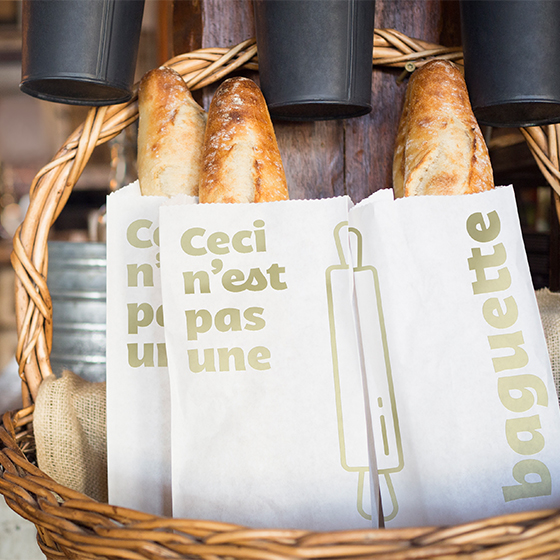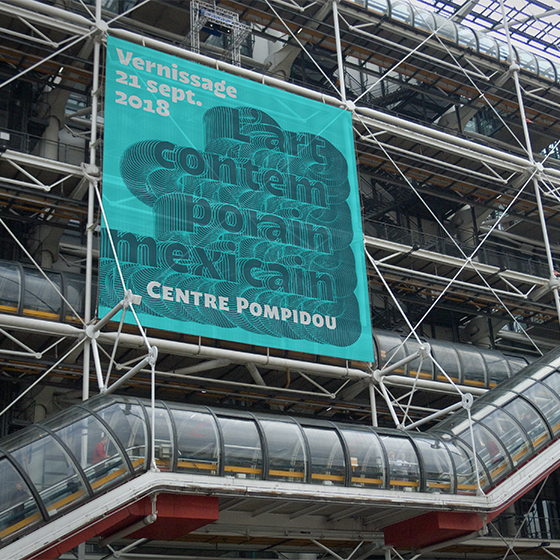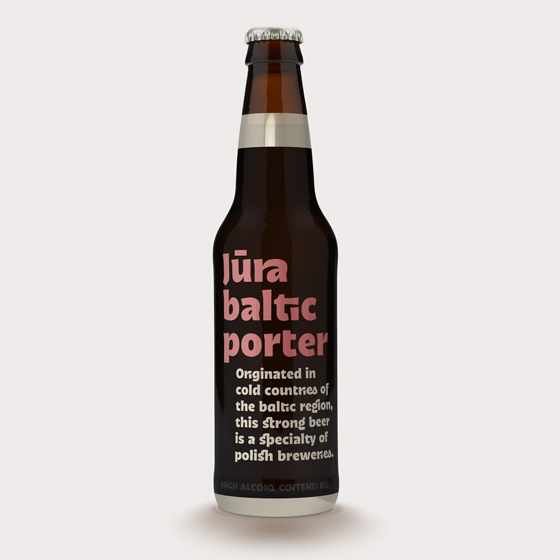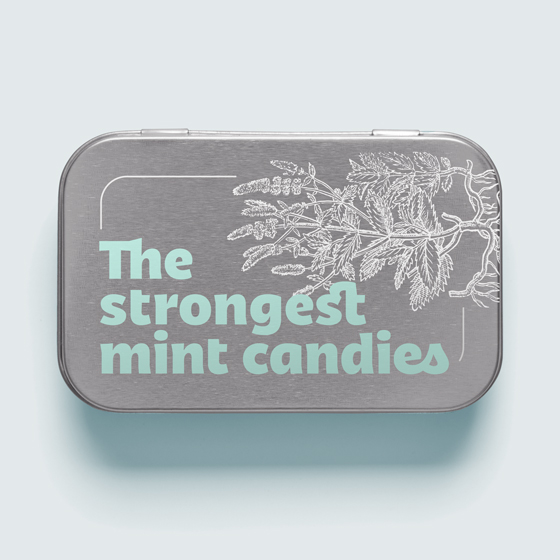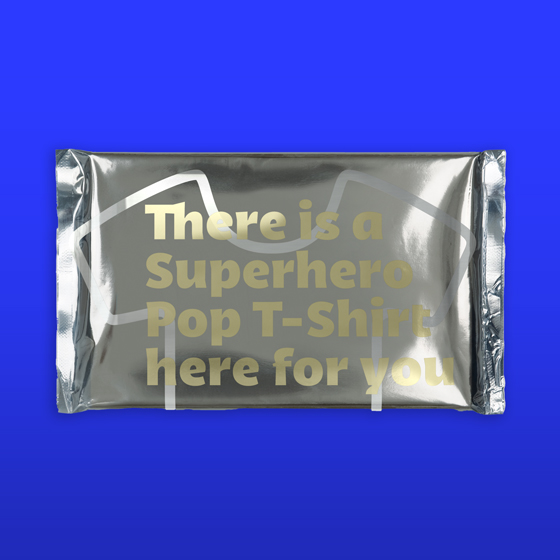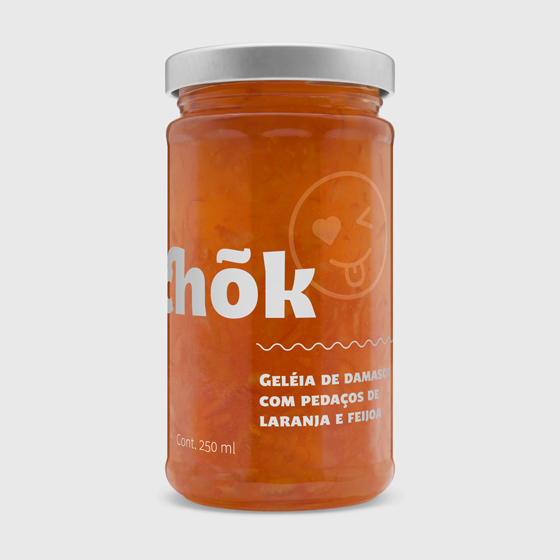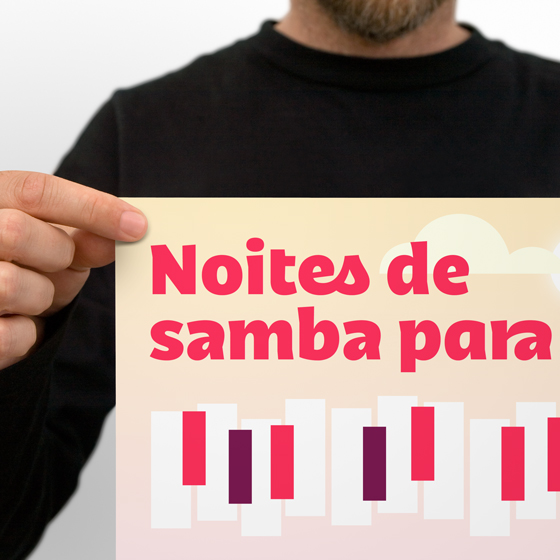
Chubasco by
Chubasco
This black sans serif is designed for impact, with a strong structure and compact proportions. Its high x-height ensures readability, while square and rounded forms create a striking yet versatile look.
Custom ligatures in both uppercase and lowercase add rhythm and personality, seamlessly connecting characters for a dynamic flow. Unique design details—such as intersecting strokes and stylized fusions—enhance its modern aesthetic. Perfect for branding, posters, packaging, and editorial layouts, this typeface brings expressive energy to any project.
1 style: Chubasco (Black)